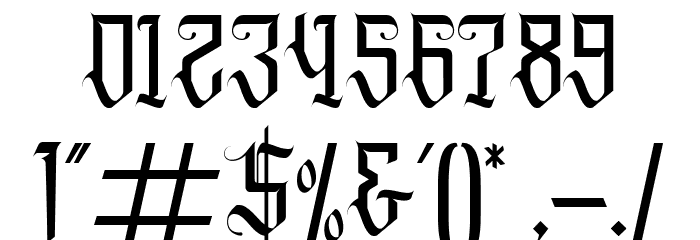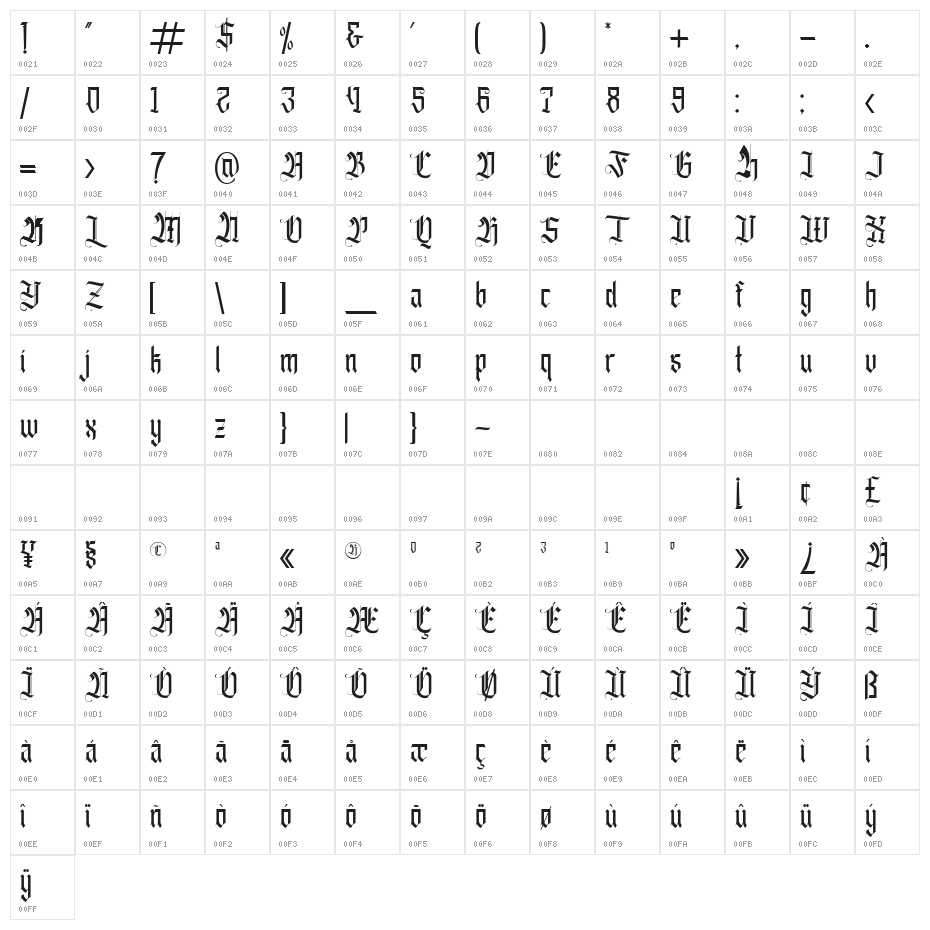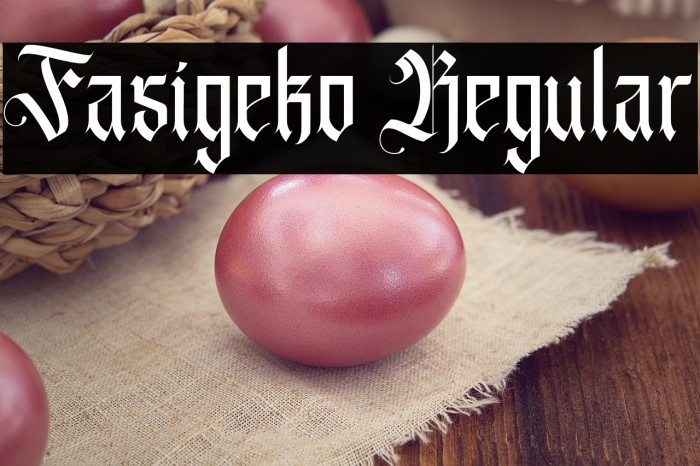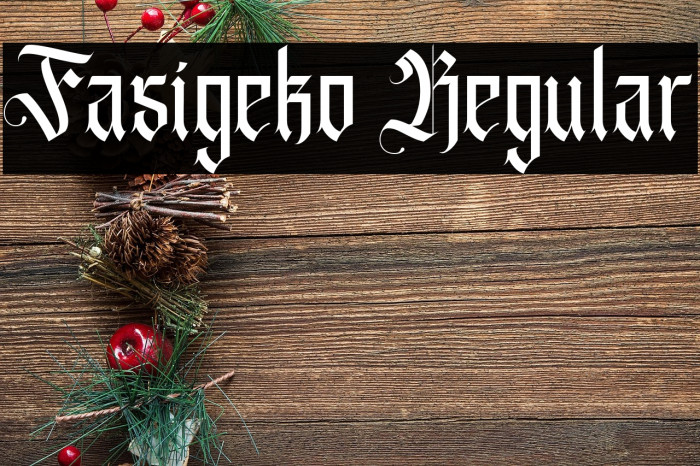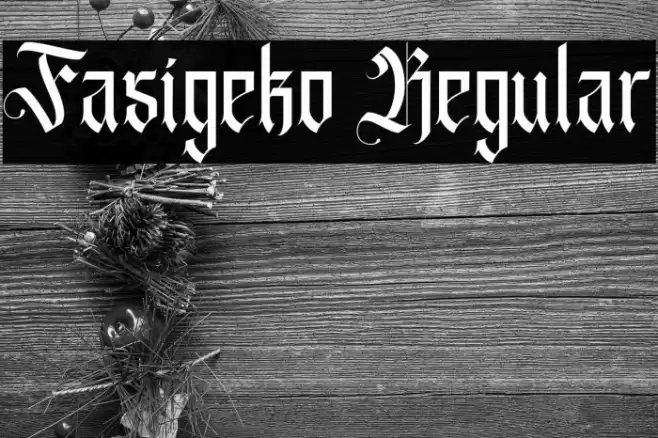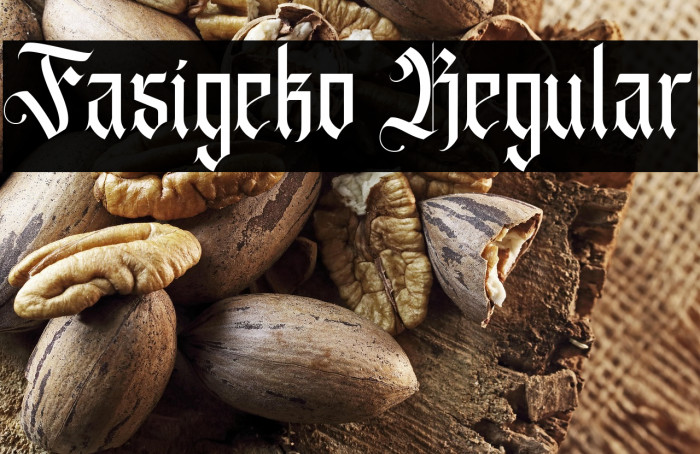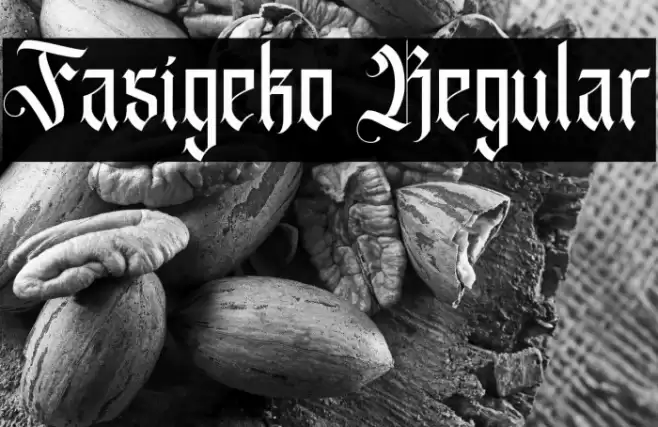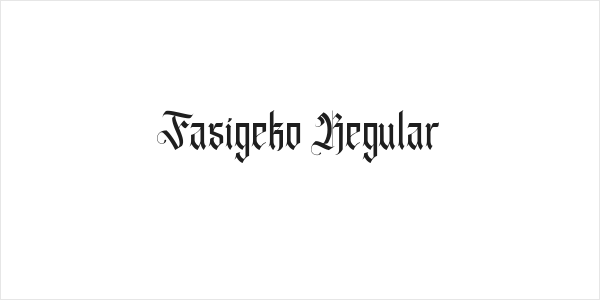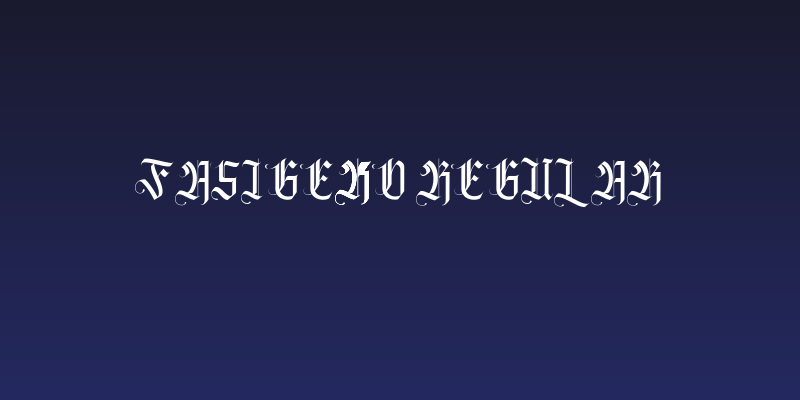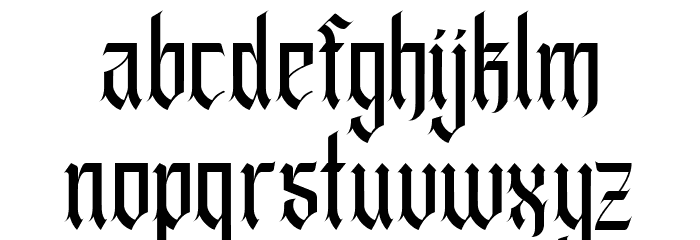
Fasigeko Regular Font
Fasigeko Regular Description
This font exudes a classic and ornate style reminiscent of traditional calligraphy. The uppercase letters are characterized by intricate flourishes and sharp, angular lines, giving them a regal and formal appearance. The lowercase letters maintain a similar aesthetic with a slightly more subdued flourish, ensuring readability while retaining elegance. The numerals are bold and consistent with the overall style, featuring sharp edges and a strong presence. Special characters are designed with the same attention to detail, integrating seamlessly with the alphabet. This font's decorative nature makes it suitable for projects that require a touch of sophistication and historical charm.